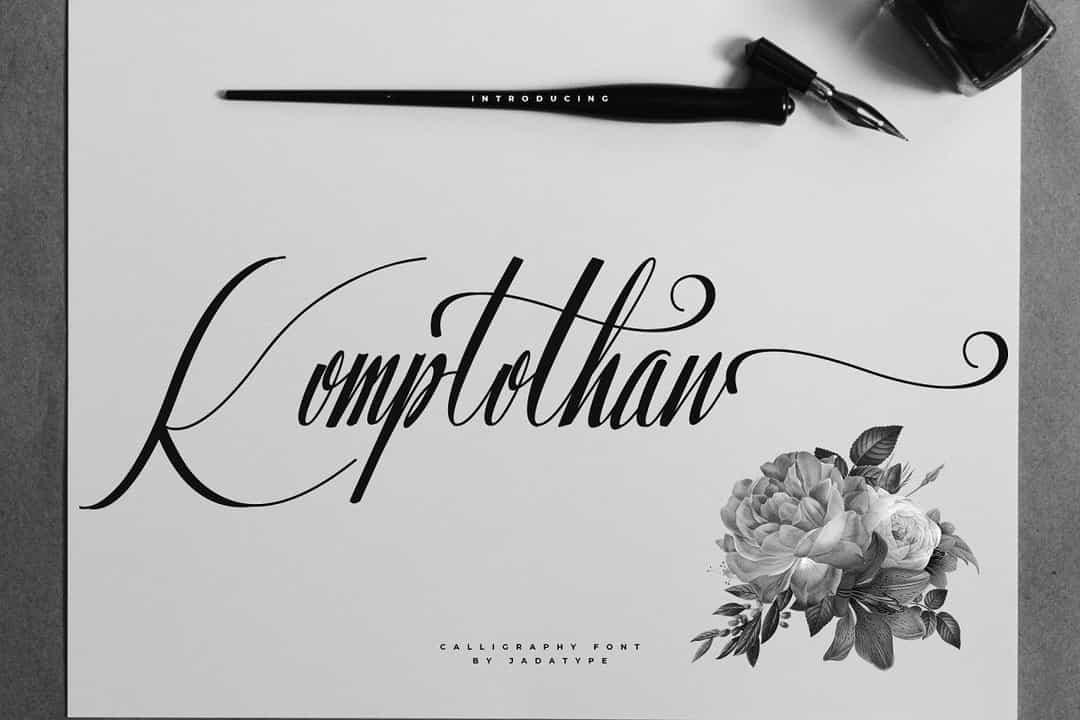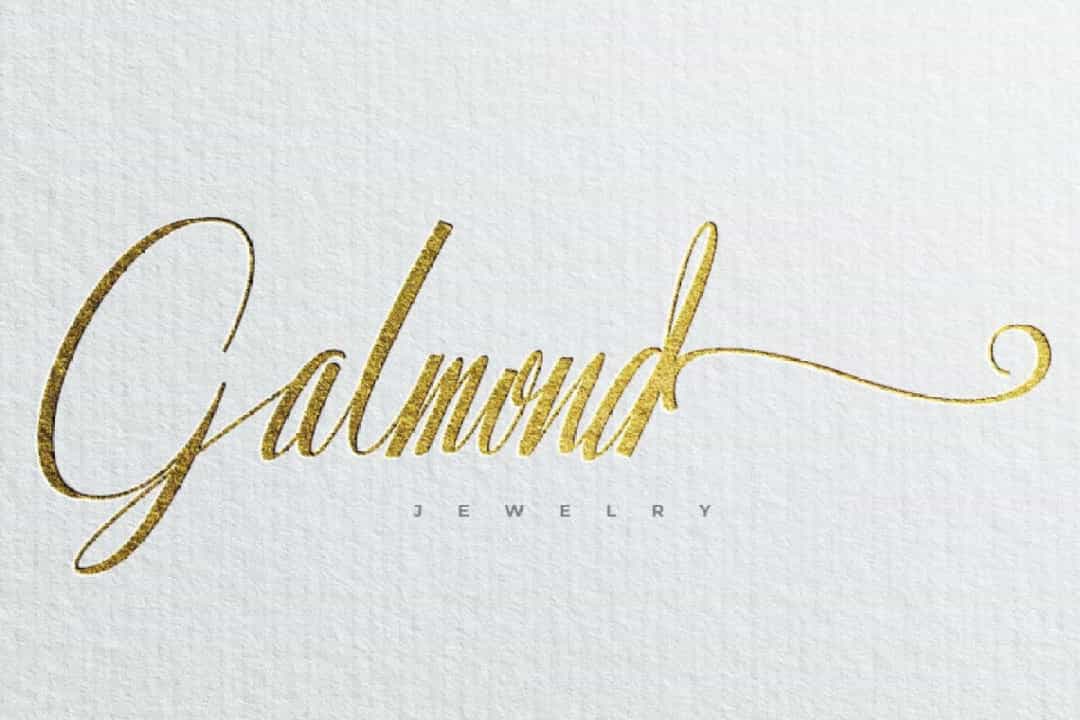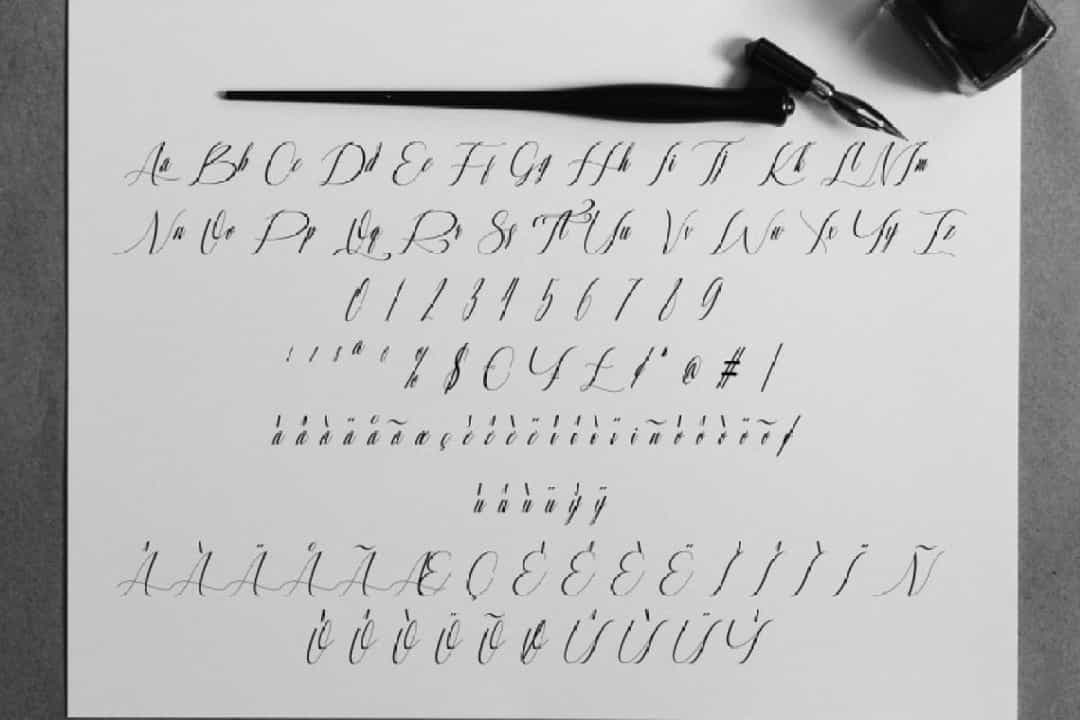
Komplothan is a calligraphy script font style. Suitable for social media, branding, logotype, products, advertisement, and so on. Contains standard English letters, numbers, punctuation, and several accents that support multilingualism.